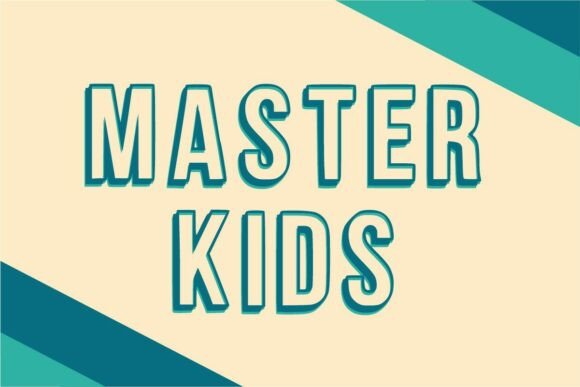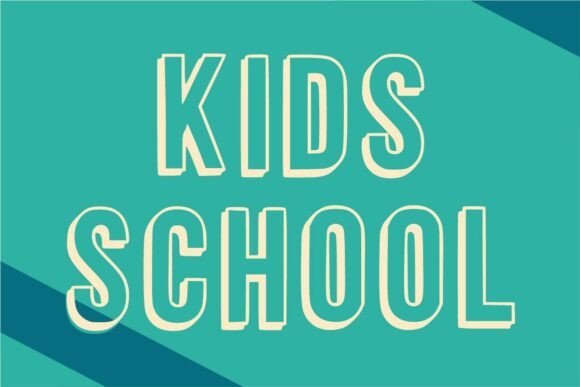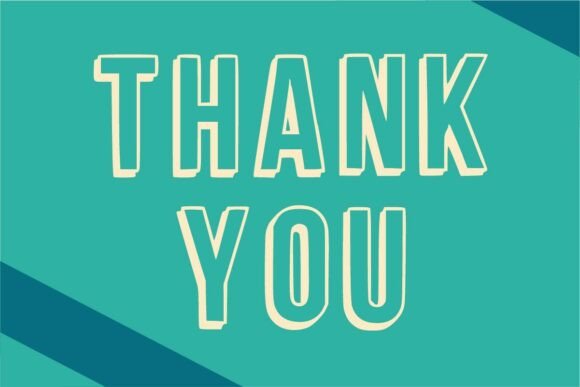
Introduction to Mastercute Regular Font
Have you ever been working on a creative project, pouring your heart and soul into a design, only to feel like something is missing? The right font can make all the difference, and for many designers, the Mastercute Regular Font is the perfect solution.
With its distinctive, playful, and friendly character, the Mastercute Regular Font is a design resource that adds a touch of whimsy to any project. Its layered, three-dimensional appearance, created by the combination of a bold, solid fill and an offset, darker outline, gives the letters a chunky, retro feel that’s hard to resist.
Key Features of Mastercute Regular Font
• High-quality design resource ideal for creative projects requiring a unique, playful touch.
• Features a transparent background, allowing for seamless integration with various design elements and backgrounds.
• Designed to be highly legible, making it perfect for body text, headings, and titles in various creative projects.
• Unique characteristics include rounded edges and subtle flair, adding a touch of whimsy to any design.
Honest Review: Mastercute Regular Font
I recently stumbled upon the Mastercute Regular Font while searching for a free design resource for a creative project. I must say, I was pleasantly surprised by its quality.
Here’s what works well: ✨ The font is highly legible, even at small font sizes. It’s perfect for body text and headings alike. The Mastercute Regular Font also has a clean and minimalist design, making it ideal for modern and sleek designs.
Another great feature is its high quality. The font is crisp and clear, with no jagged edges or blurry textures. It’s also available for free download, which is a major plus for designers on a budget.
However, there are some limitations: ⚠️ The font only comes in a single weight, which may limit its versatility. Additionally, it may not be the best choice for designs that require a transparent background, as the font’s design may not show up clearly.
Overall, I’m impressed by the Mastercute Regular Font. It’s a solid choice for designers looking for a high-quality, free font for their creative projects.
• Highly legible font
• Perfect for body text and headings
• Clean and minimalist design
• May not be suitable for designs with transparent backgrounds
• Only comes in a single weight
Mastercute Regular Font: A Design Resource for Creative Projects
Tips for Getting the Most Out of Mastercute Regular Font
To maximize the effectiveness of the Mastercute Regular Font, consider the following tips:
• Pair the font with a transparent background for a clean and modern look.
• Experiment with different font sizes and styles to create visual interest.
• Combine the font with high-quality images for a professional finish.
Common Use Cases for Mastercute Regular Font
The Mastercute Regular Font is ideal for various creative projects, including:
• Social media graphics and advertising materials.
• Posters and flyers for events and promotions.
• Business cards and letterheads for branding purposes.
Alternatives to Mastercute Regular Font
Lato is a modern sans-serif font that offers a high-quality design resource for creative projects. It’s perfect for use in logos, headings, and body text, especially when a clean and minimalist look is desired. With a transparent background, Lato can be easily applied to any design.
Lato is similar to Mastercute Regular Font in its clean and simple design, but it has a more modern and sophisticated feel. It’s a great alternative for designers who want a font that is both stylish and easy to read.
Avenir Font
Avenir is a geometric sans-serif font that offers a high-quality design resource for creative projects. It’s perfect for use in logos, headings, and body text, especially when a modern and elegant look is desired. With a transparent background, Avenir can be easily applied to any design.